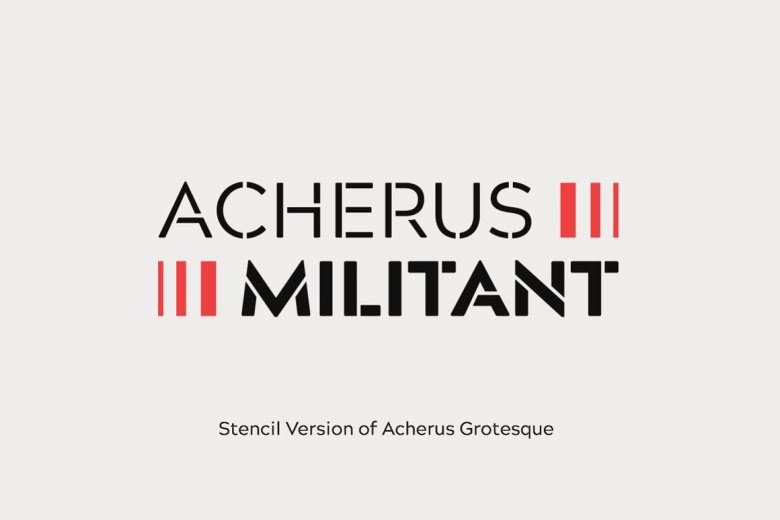
Acherus Militant Font Family
Acherus Militant Font
Introducing the new font family. Acherus Militant Font Family designed by Ufuk Aracıoğlu, and was published by Horizon Type. Acherus Militant is a sans serif and stencil font family. This typeface has twenty-four styles.